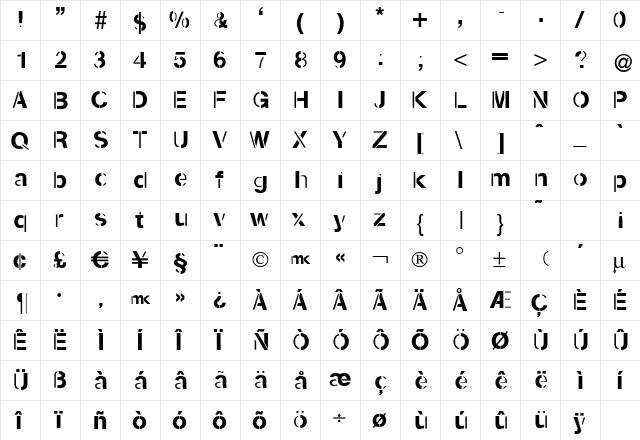
Kenzotiqua Regular
Design Context for Kenzotiqua Typeface
Kenzotiqua is a composed and adaptable typeface that performs quietly and consistently across a wide range of design contexts.